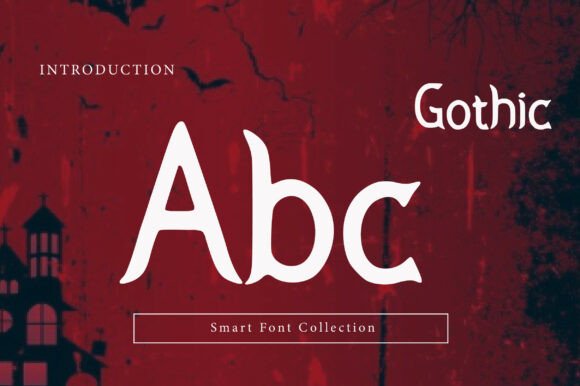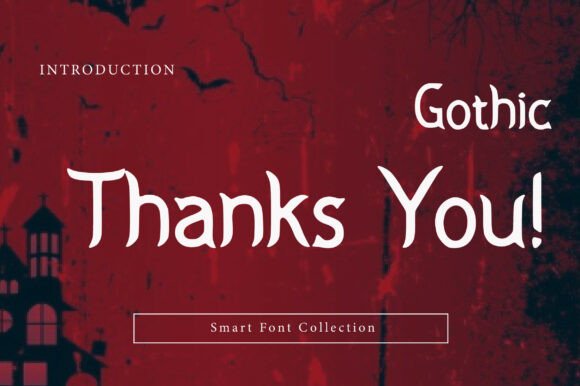
The Timeless Elegance of Gothic Font: A Guide for Designers and Crafters
The Gothic font is a bold, calligraphy-inspired display font that exudes a medieval gothic feel with its handcrafted character. Its strong strokes, slightly flared terminals, and classic old-world styling make it an ideal choice for dramatic titles and branding. Whether you’re a designer, crafter, or simply a font enthusiast, the Gothic font is sure to captivate your audience with its timeless elegance and mystique.
Origins and Characteristics
The Gothic font has its roots in traditional calligraphy, with a history dating back to the Middle Ages. It’s characterized by its bold, dramatic strokes, and ornate details that evoke a sense of mystery and luxury. The font’s strong strokes and slightly flared terminals give it a sense of grandeur, while its classic old-world styling adds a touch of sophistication.
Perfect for Fantasy and Historical Designs
The Gothic font is a natural fit for fantasy and historical designs, where a sense of drama and mystique is required. Its medieval feel makes it perfect for book covers, posters, and logos that need to evoke a sense of ancient mystery. Whether you’re designing a fantasy novel, a historical drama, or a Gothic-inspired product, this font is sure to add a touch of authenticity to your design.
Halloween and Dark Academia Aesthetics
The Gothic font is also a popular choice for Halloween projects and dark academia aesthetics. Its bold, dramatic strokes and ornate details make it perfect for creating spooky and atmospheric designs that are sure to send shivers down the spine. Whether you’re designing a Halloween party invitation, a horror movie poster, or a dark academia-inspired product, this font is sure to add a touch of eerie elegance to your design.
Album Artwork and Game Titles
The Gothic font is not just limited to print design; it’s also a popular choice for album artwork and game titles. Its bold, dramatic strokes and ornate details make it perfect for creating eye-catching designs that stand out in a crowded market. Whether you’re designing an album cover, a game title, or a movie poster, this font is sure to add a touch of sophistication and elegance to your design.
Why Choose Gothic Font?
So why choose the Gothic font for your next design project? Here are just a few reasons:
- Readability: Despite its bold and dramatic strokes, the Gothic font is surprisingly readable, making it perfect for designs that need to convey a message.
- Versatility: The Gothic font can be used for a wide range of design projects, from fantasy and historical designs to album artwork and game titles.
- Elegance: The Gothic font exudes a sense of timeless elegance and sophistication, making it perfect for designs that need to convey a sense of luxury and refinement.
Tips for Using Gothic Font
Here are a few tips for using the Gothic font in your design projects:
- Use it sparingly: The Gothic font is a bold and dramatic font, so use it sparingly to avoid overwhelming your design.
- Pair it with a simple font: Pair the Gothic font with a simple font to create contrast and add visual interest to your design.
- Experiment with colors: The Gothic font looks great in a range of colors, from bold and bright to muted and pastel.
The Gothic font is a timeless and elegant font that’s perfect for designers and crafters who want to add a touch of medieval mystery to their designs. With its bold strokes, slightly flared terminals, and classic old-world styling, it’s ideal for dramatic titles and branding. Whether you’re designing a fantasy novel, a historical drama, or a Gothic-inspired product, this font is sure to captivate your audience with its timeless elegance and mystique.